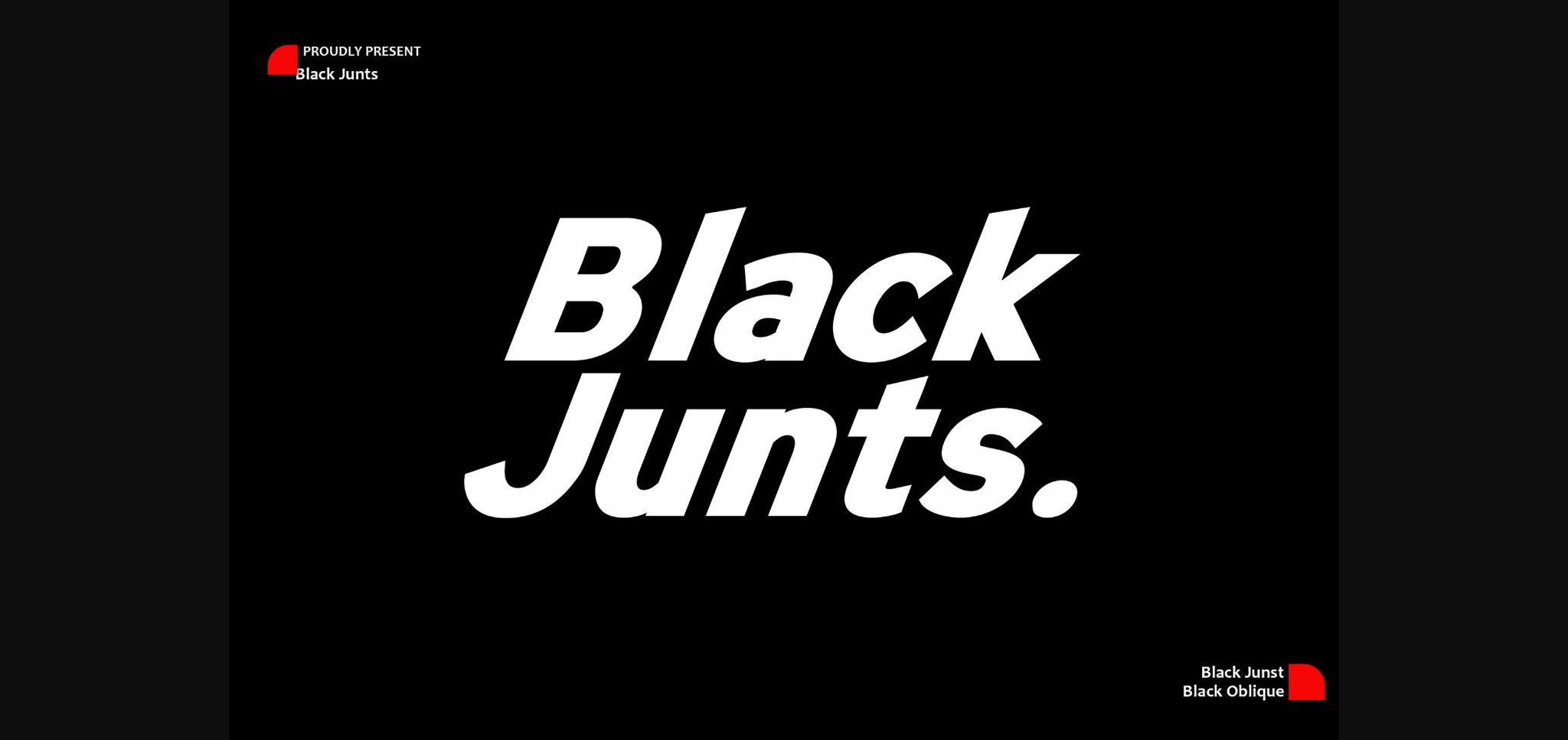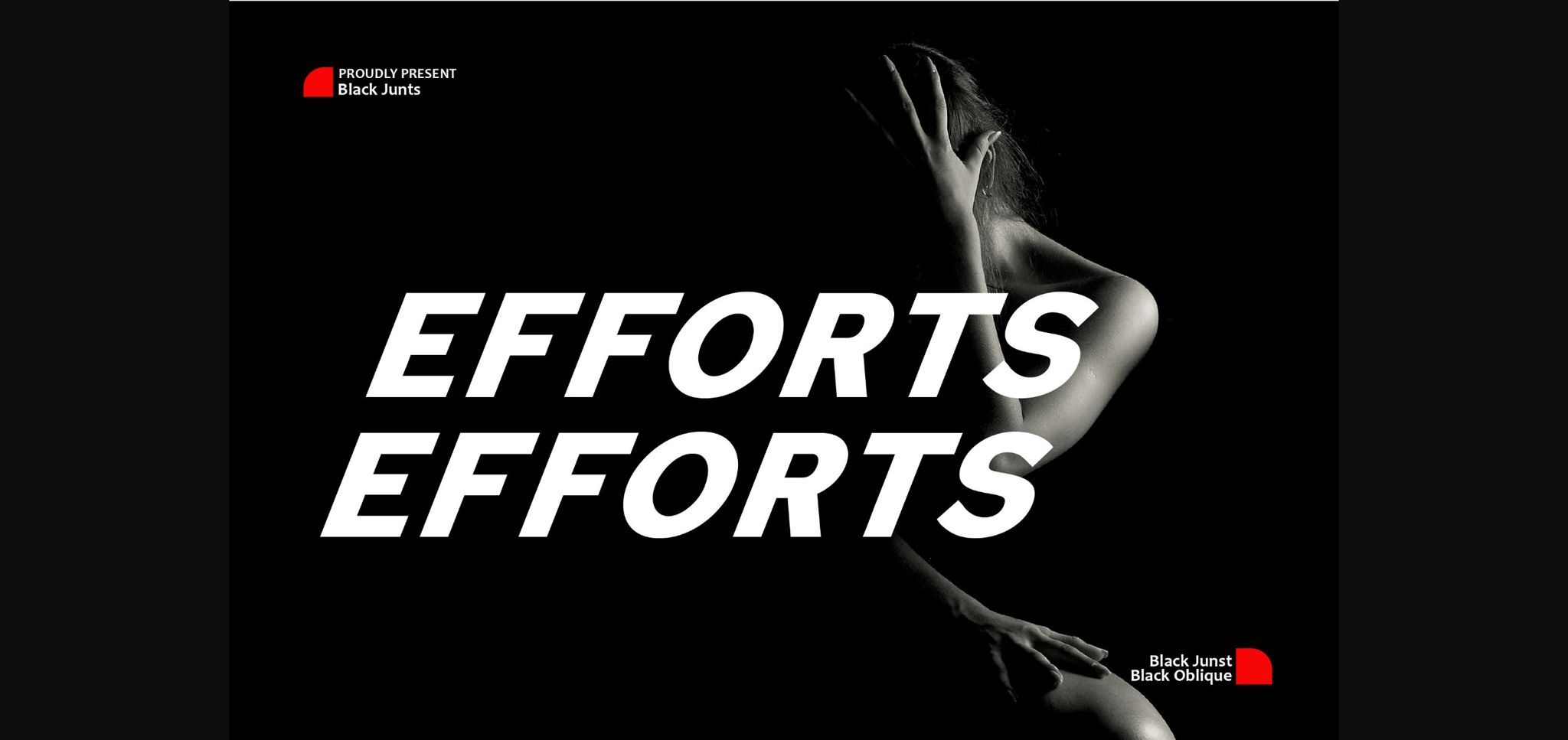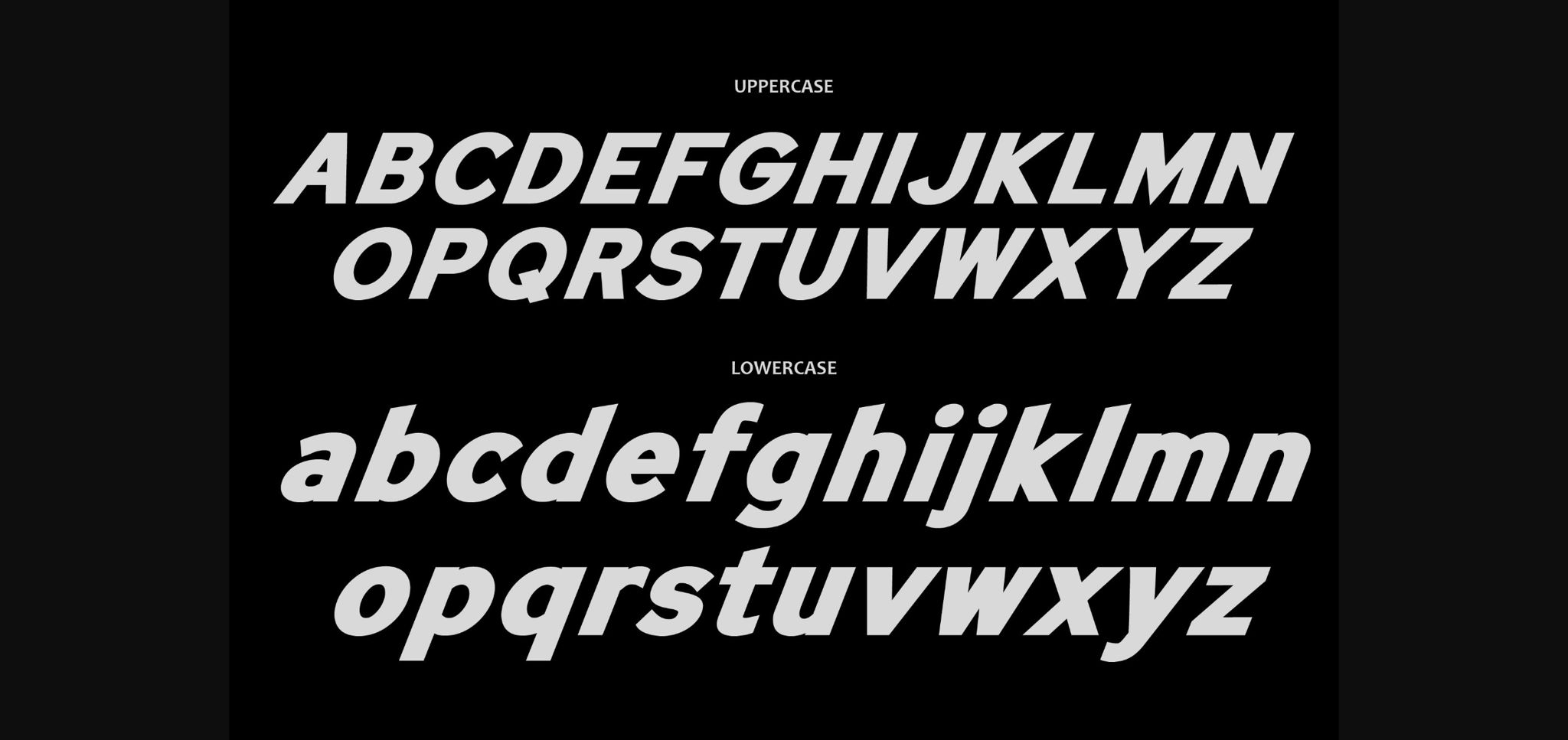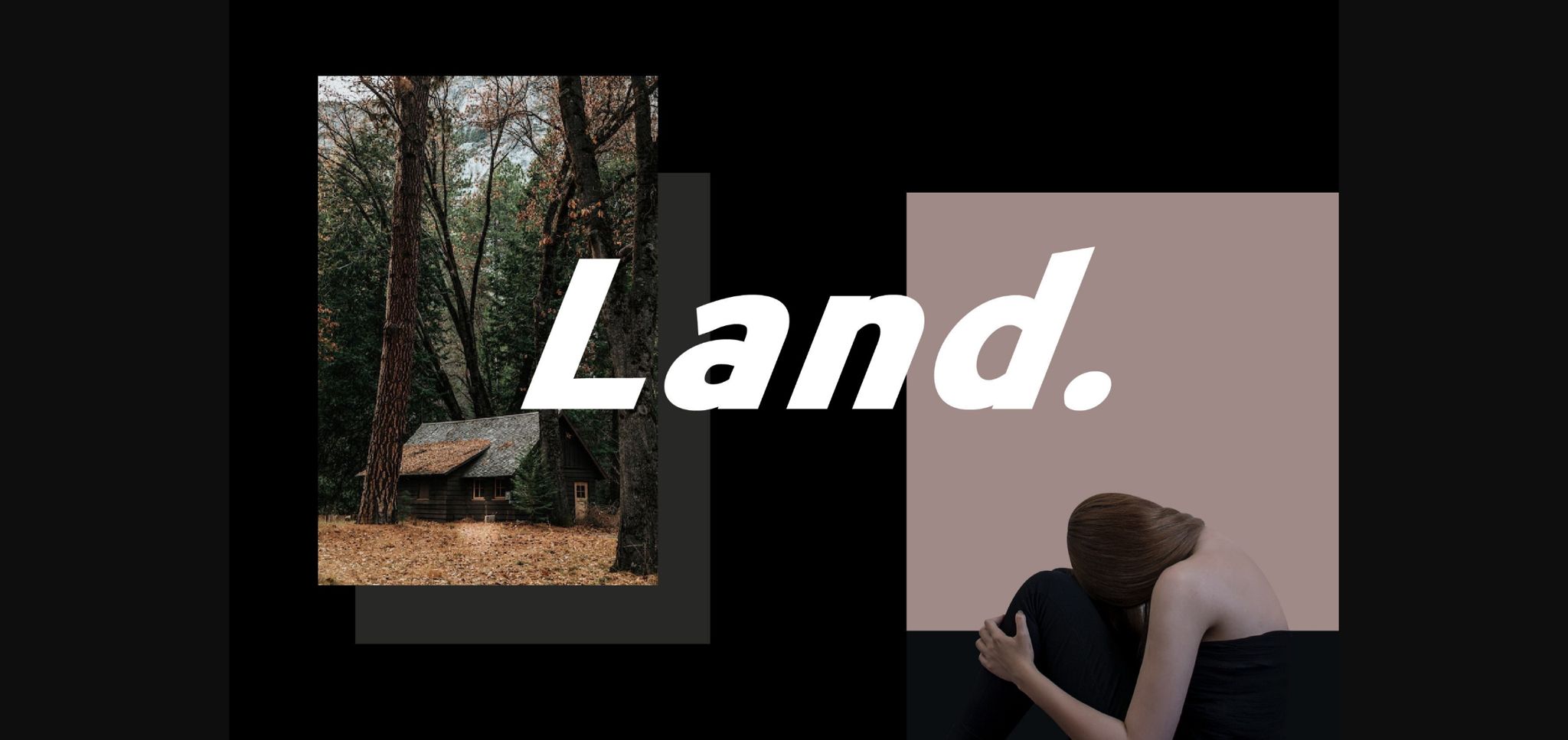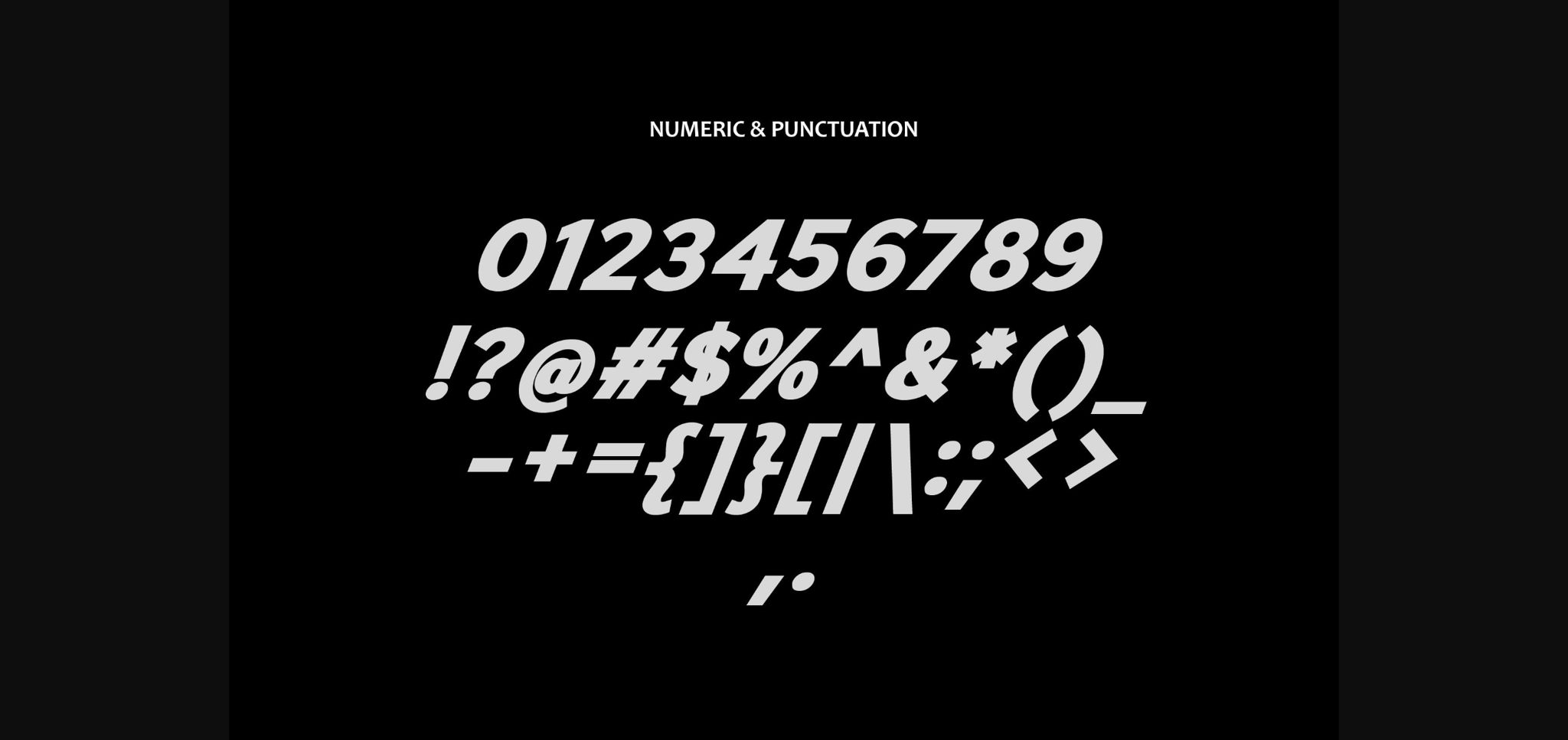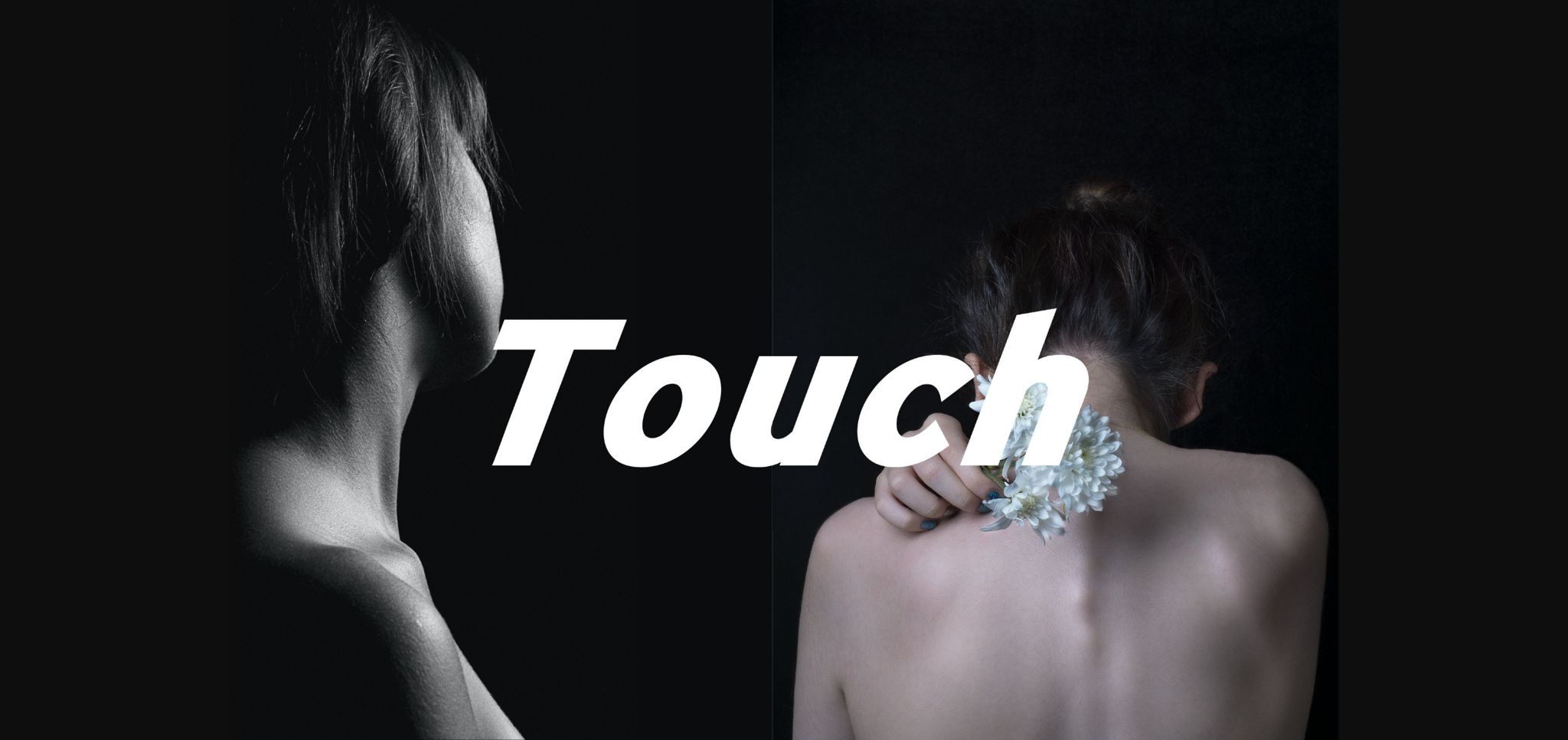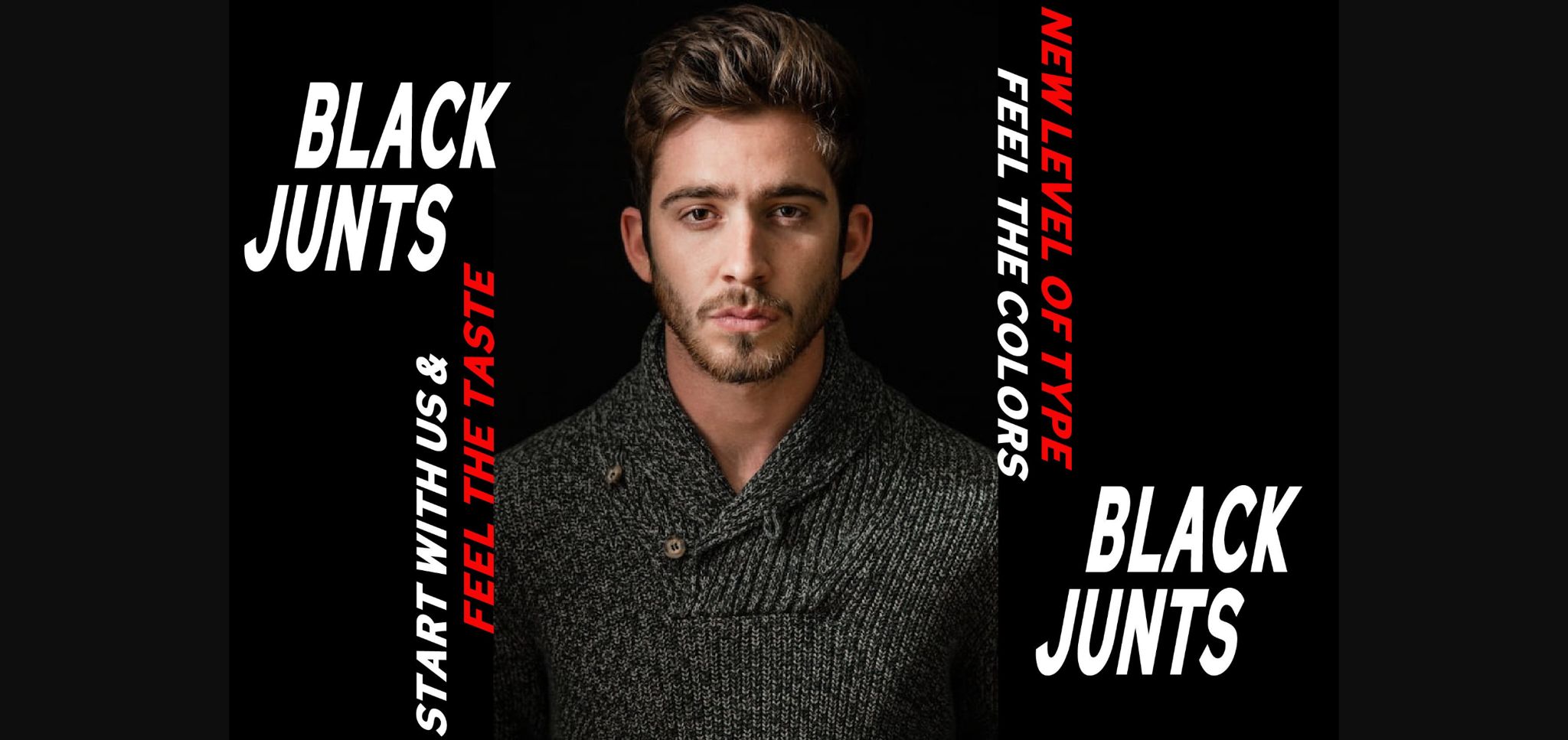
HomeSans Serif FontsBlack Junts Font Sans Serif Fonts Black Junts Font FacebookTwitterPinterestWhatsApp 1 of 9 ... Black Junts Font Poster 2... Black Junts Font Poster 3... Black Junts Font Poster 4... Black Junts Font Poster 5... Black Junts Font Poster 6... Black Junts Font Poster 7... Black Junts Font Poster 8... Black Junts Font Poster 9... About Black Junts Font Black Junts is a cool and modern sans serif font. Use it to create unique t-shirt designs, posters, headlines, decorations, digital designs, or anything that needs bold and daring typography. DOWNLOAD NOW People also explored Damocles Democracy Font Flower Pattern Font Grage Font Limited Font Write Fun Funy Font Teleportation Font Kingstoner Font Happy Children Font Whitney Font 226 0 TagsBlack Junts Font Previous articleMarianne FontNext articleAnamis Font LEAVE A REPLY Cancel reply Comment: Please enter your comment! Name:* Please enter your name here Email:* You have entered an incorrect email address! Please enter your email address here Website: Save my name, email, and website in this browser for the next time I comment. Personal Use Free Christmas Diary Personal Use Free Read more about this font Baby Love Personal Use Free Read more about this font Party Pooper Personal Use Free Read more about this font Panaroe Personal Use Free Read more about this font BLOG Free Fonts Risk: Why Free Fonts Can Be Dangerous for Designers Free Fonts Risk: Why Free Fonts Can Be Dangerous for Designers Using free fonts is a common practice in web and graphic design. However, the... Using Fonts in Digital Marketing: Tips to Strengthen Your Brand Identity Top 7 Google Fonts Alternatives for Faster and Privacy-Friendly Web Design (2025) To increase your work productivity, choose the most readable fonts.